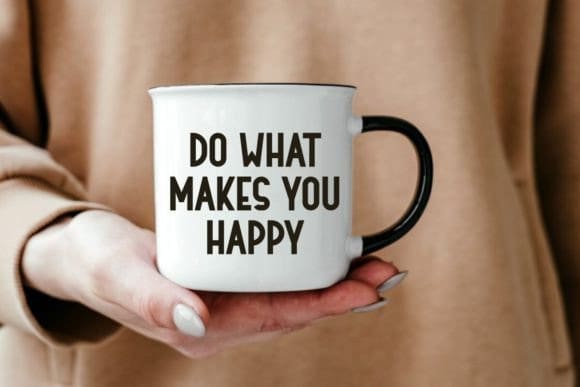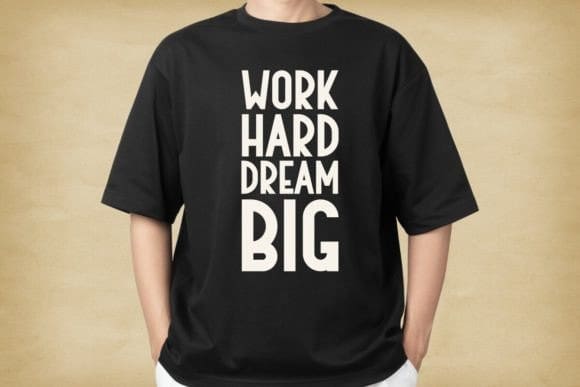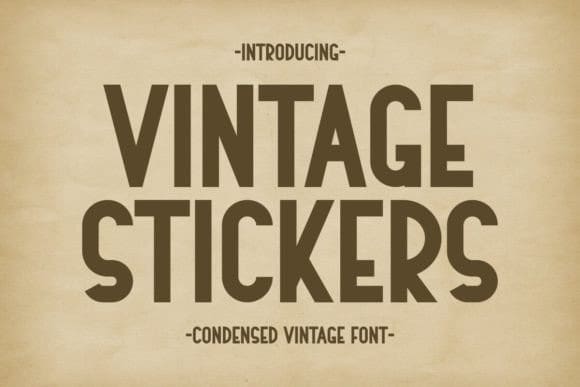
Vintage Stickers Font
Vintage Stickers Font is a sans serif and condensed vintage font that blends classic and modern aesthetics with a clean design. With its stylish and sleek appearance, “Vintage Stickers” enhances any design with a sophisticated yet nostalgic charm, making it an ideal choice for a wide range of creative applications. Perfect for quotes, posters, t-shirts, tote bags, mugs, and backgrounds, this versatile typeface adds a touch of timeless elegance to your projects.